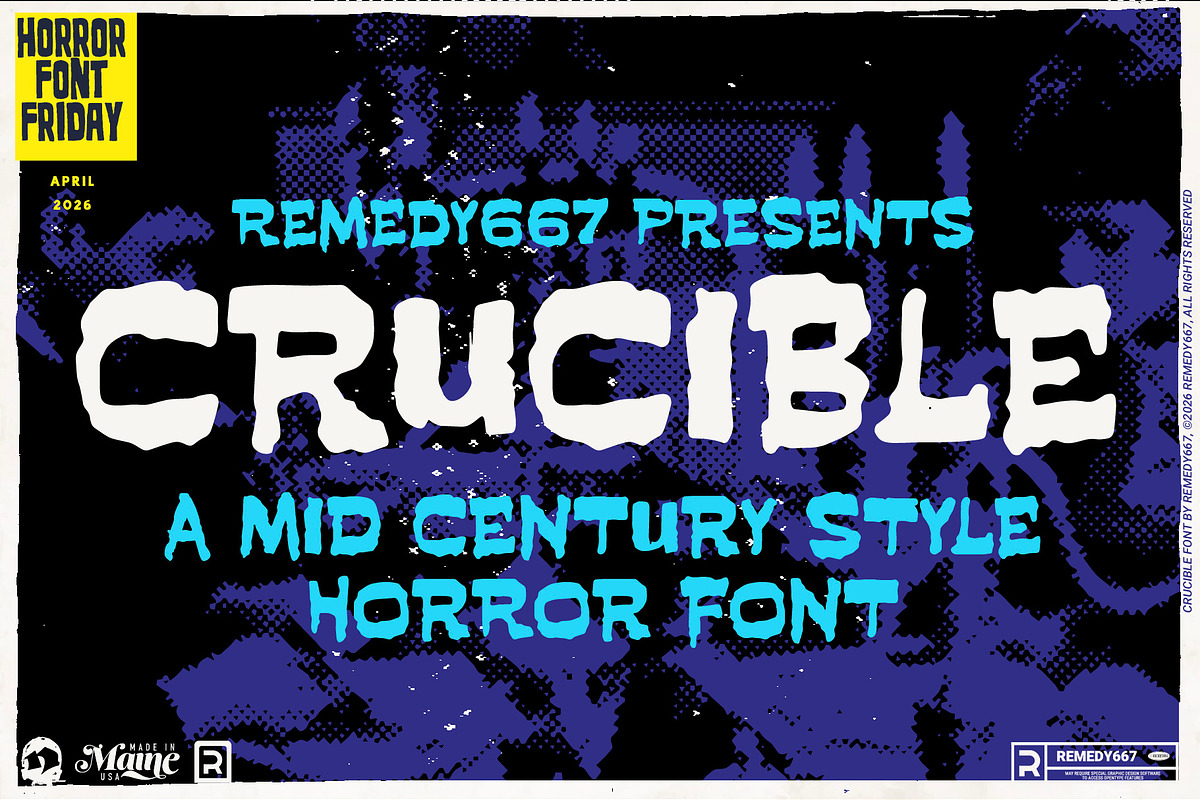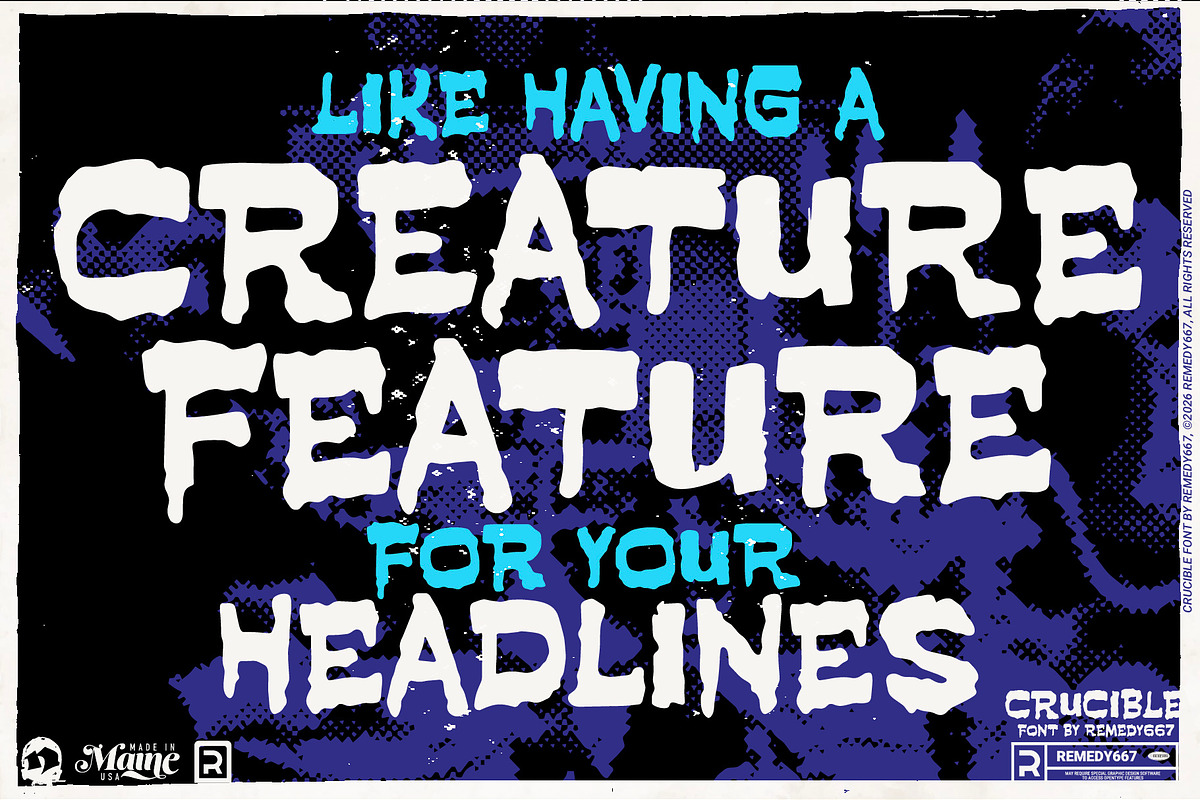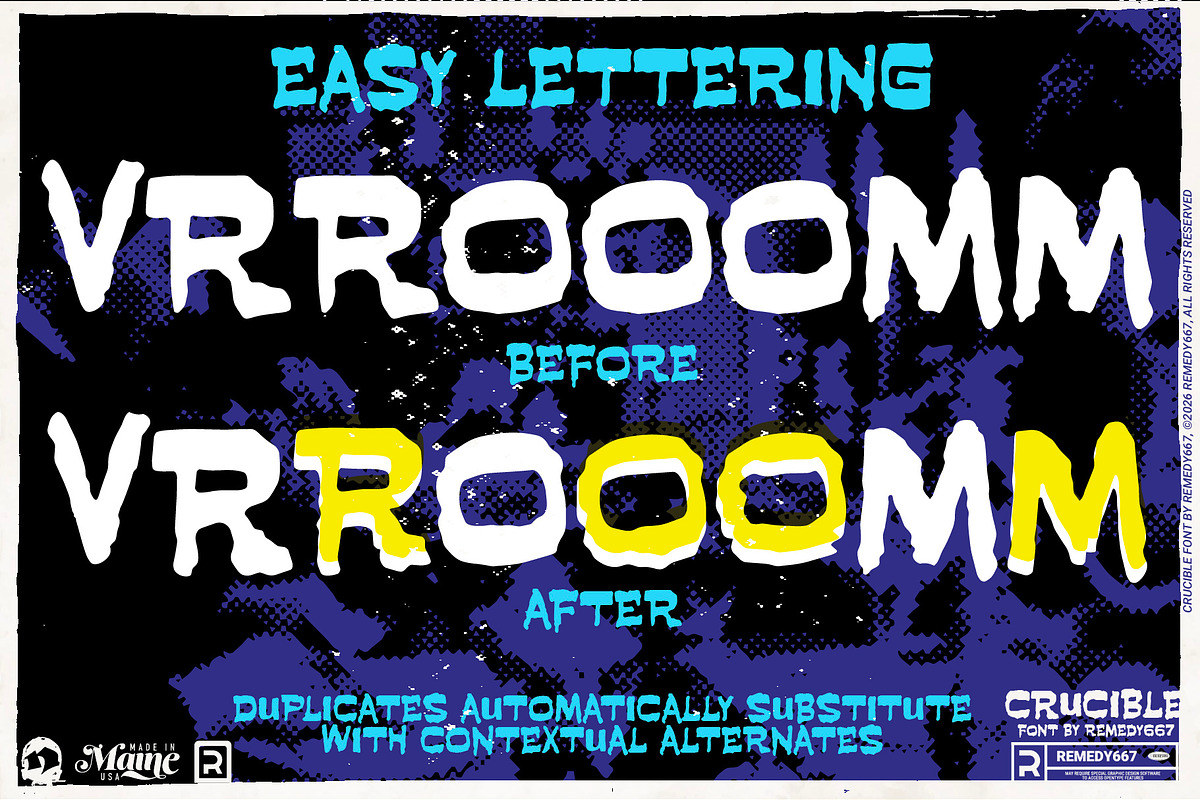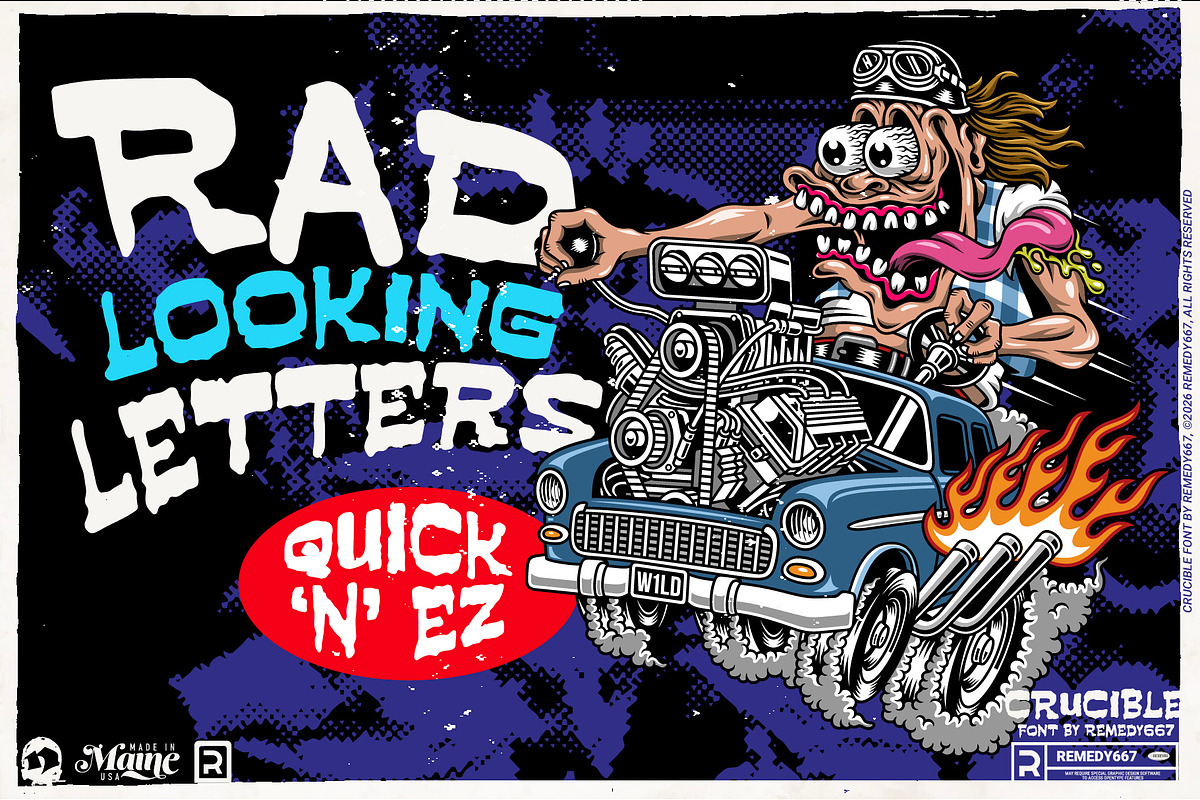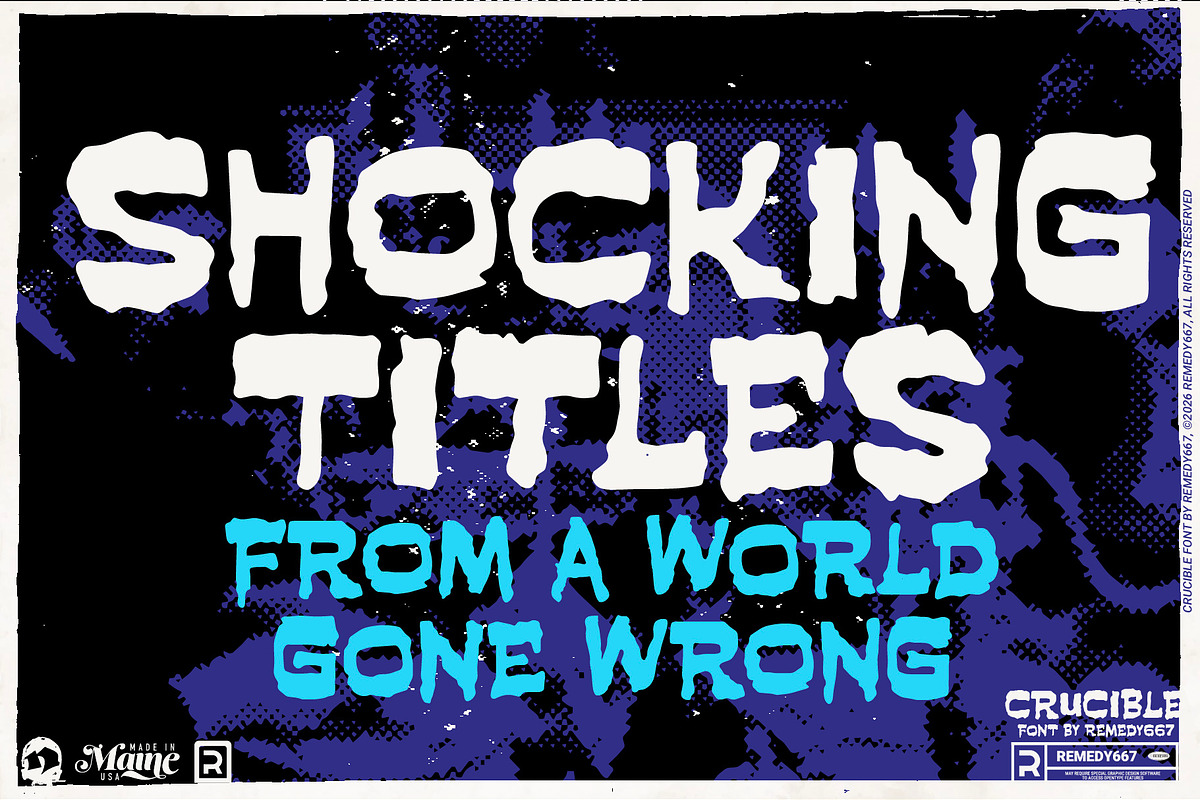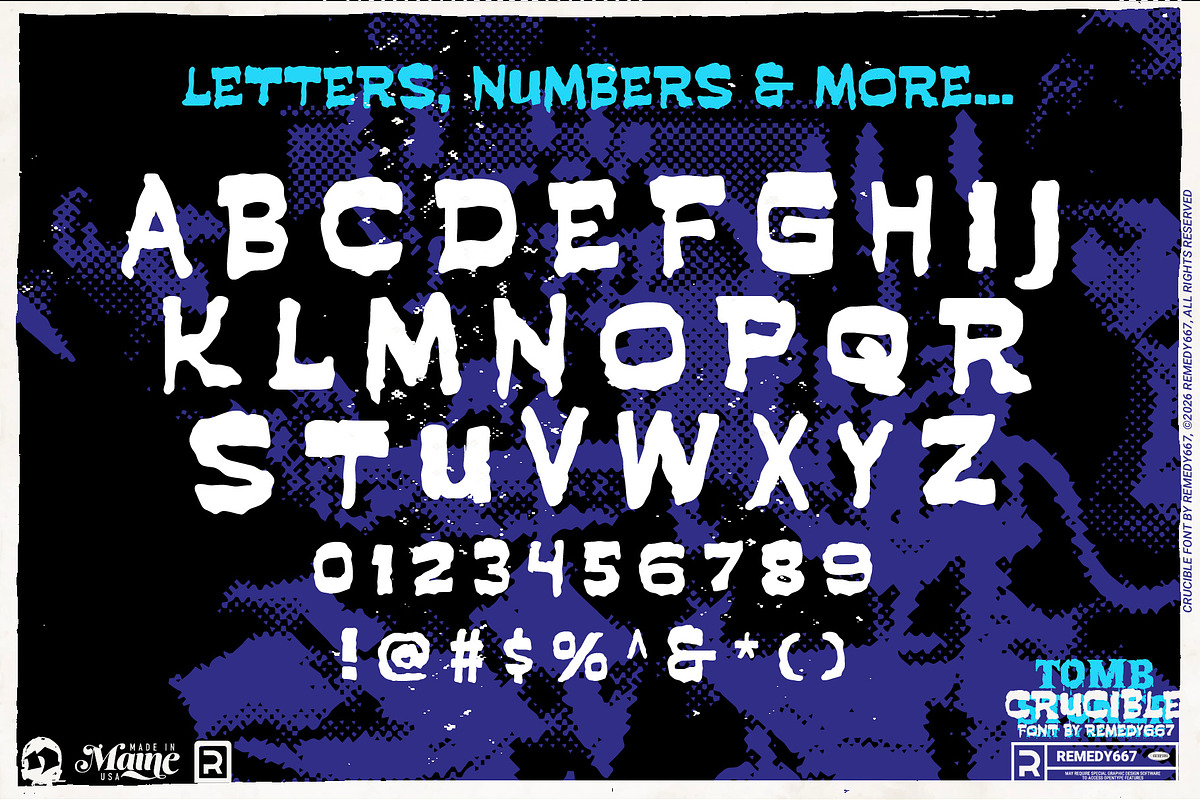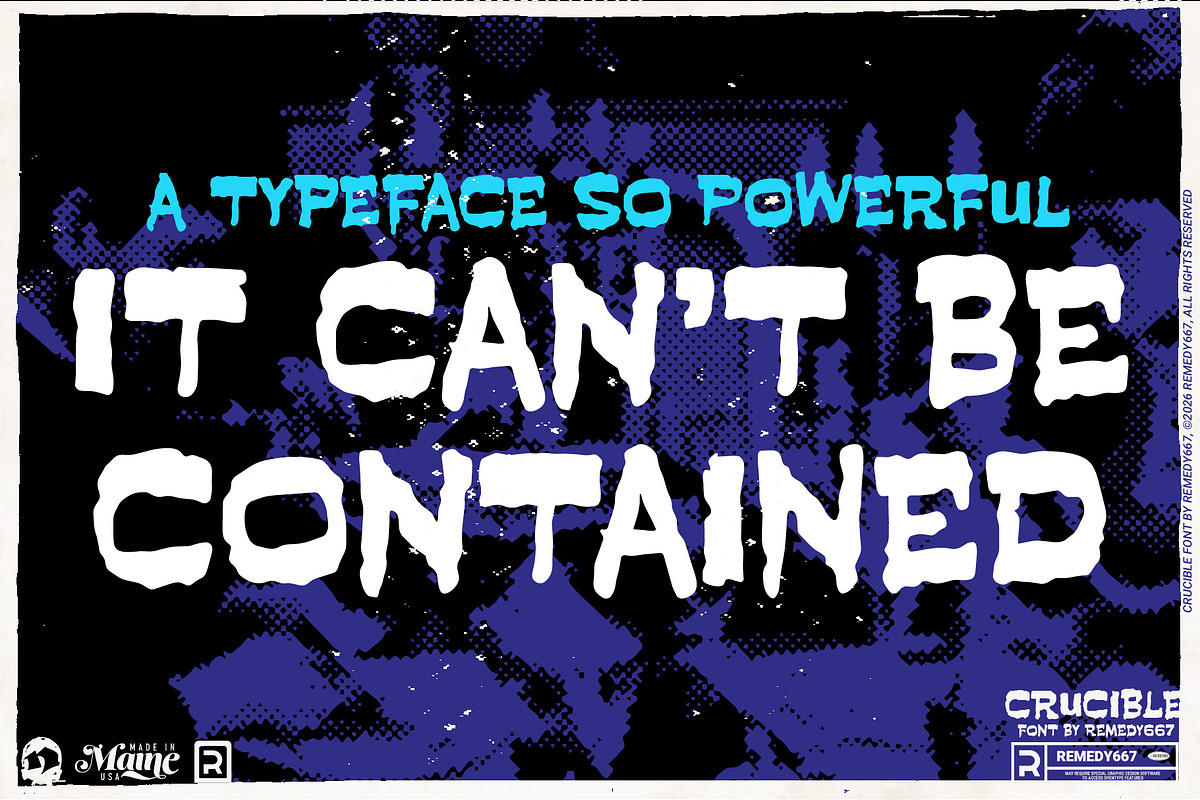
Crucible - Mid Century Font
Step into the fire and behold Crucible. A mid century style horror typeface inspired by the film Crucible of Horror, starring Boris Karloff. Twisted and unbalanced, Crucible teeters on the brink of madness.
Perfect for subheadings and sinister titles, Crucible delivers unmistakable classic horror feels. The subtle instability keeps the viewers eye on edge. Its uneven rhythm gives your words a restless, haunted quality.
- Unbalanced letterforms for a tense, unsettling visual rhythm
- Doubles elimination for letters and numbers via OpenType features
- Ideal for subheadings, titles, and classic horror layouts
- Multilingual support for global gothic storytelling